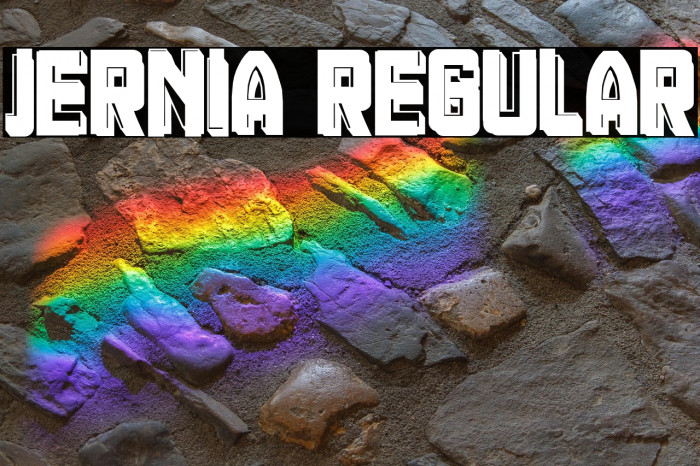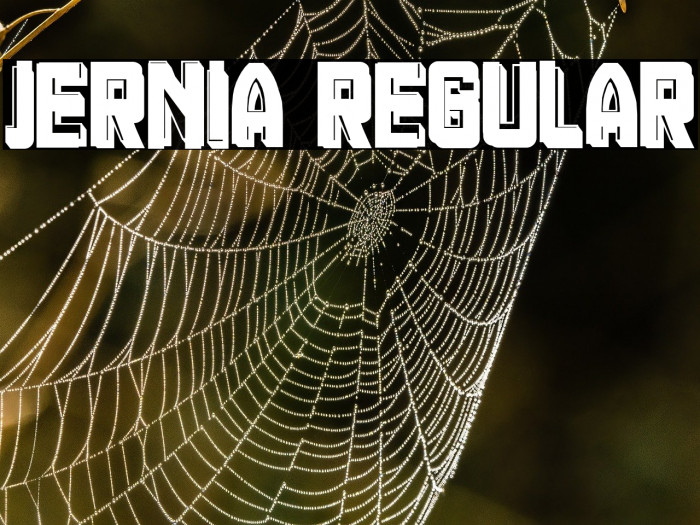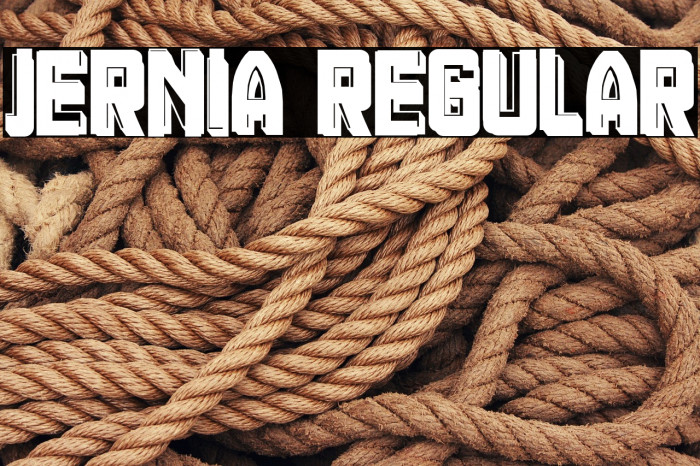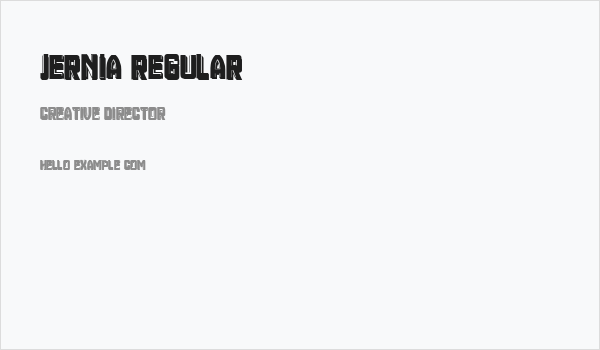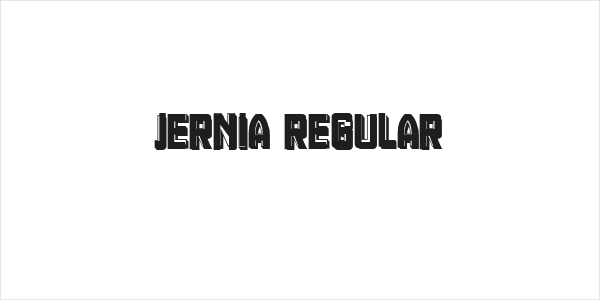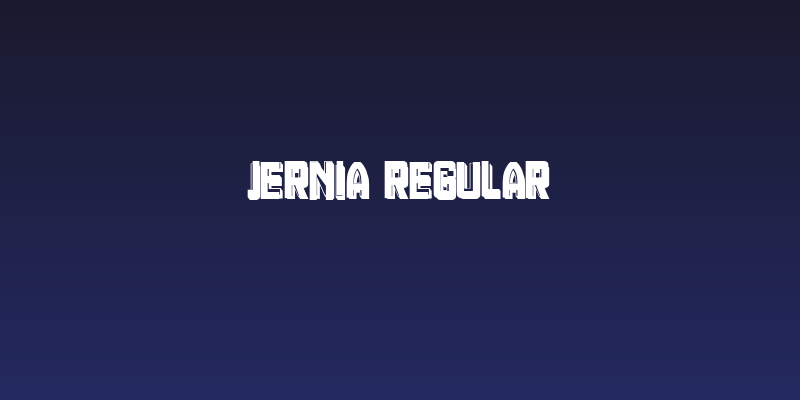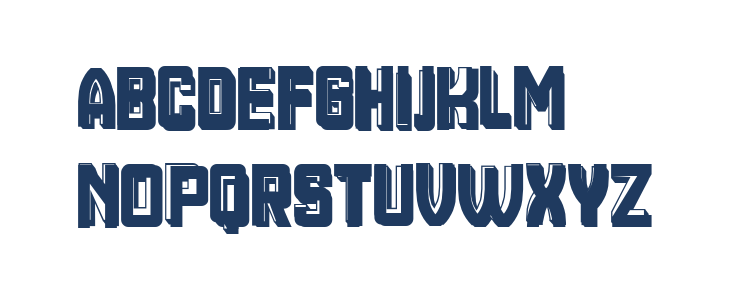
Jernia Regular Font
Jernia Regular Description
This font exhibits a bold and striking appearance with a strong presence. The characters are designed with a unique blend of geometric and block-like elements, creating a sense of depth and dimension. The uppercase letters are particularly prominent, featuring sharp angles and clean lines that contribute to a modern and industrial aesthetic. The font's style is consistent throughout, maintaining a uniformity that enhances its visual impact. The overall design is both eye-catching and versatile, making it suitable for a variety of creative applications.
| Proposed Projects | Ideal for branding, posters, headlines, and any design requiring a strong visual impact. |